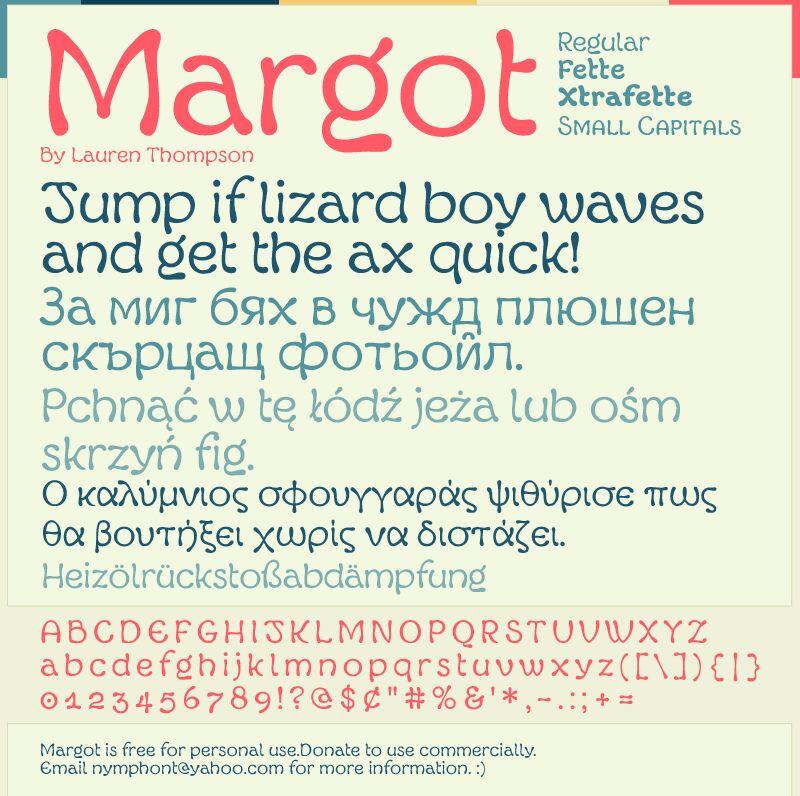
Margot Xtrafette, designed by Lauren Thompson of Nymfont in 2013, is a free old-school comic display font with plump, uneven letters and a lively hand-drawn silhouette. Rounded corners, swelling strokes, and shifting widths keep the lettering loose and good-humored.
It can turn a title into a cheerful cartoon sign, which suits children's publishing and comedy event posters. The same bouncy forms also fit candy packaging, casual restaurant branding, and playful merchandise, especially when the lettering becomes part of the illustration.
Corrections and additions were made to the Cyrillic character set. Margot Fette has become Margot Bold.